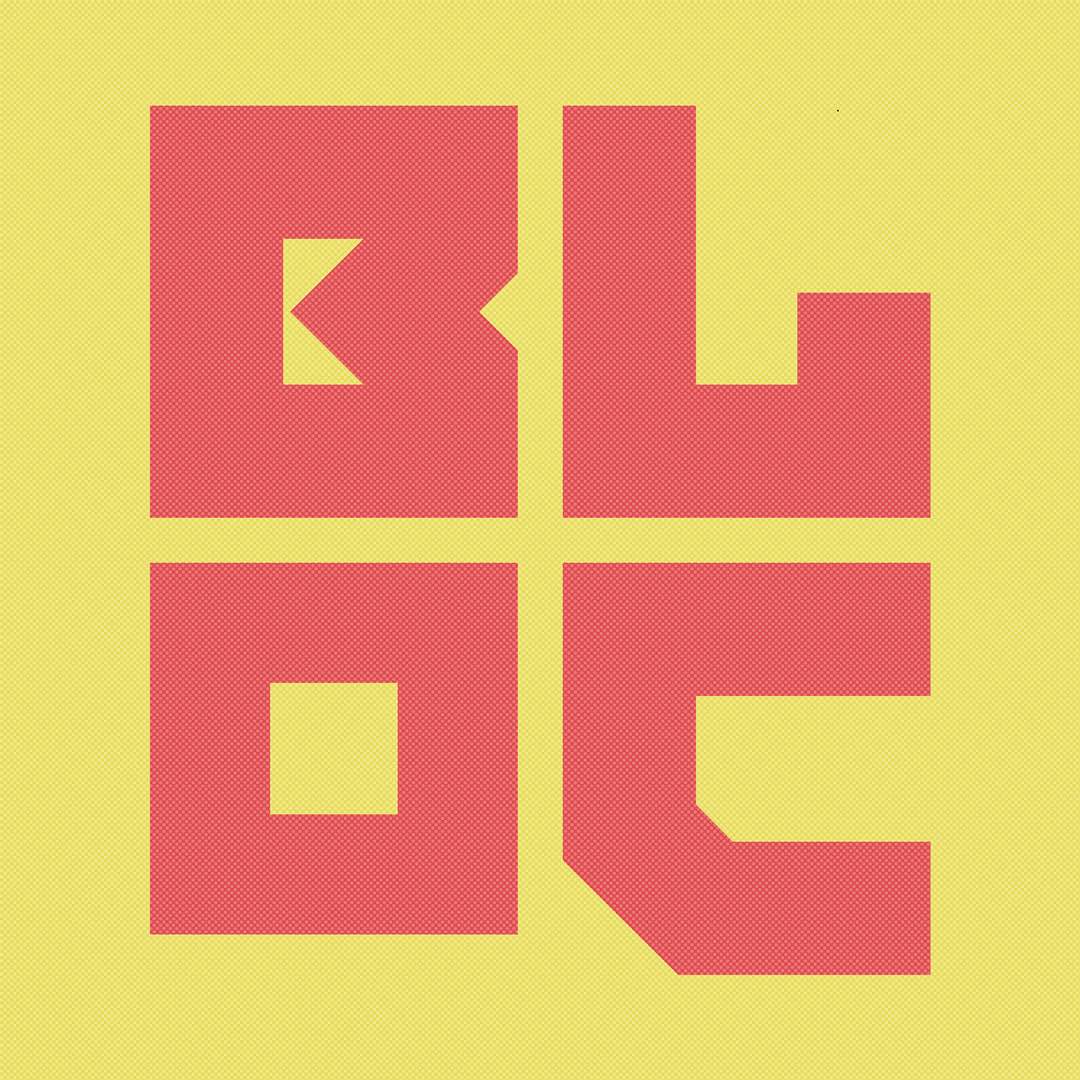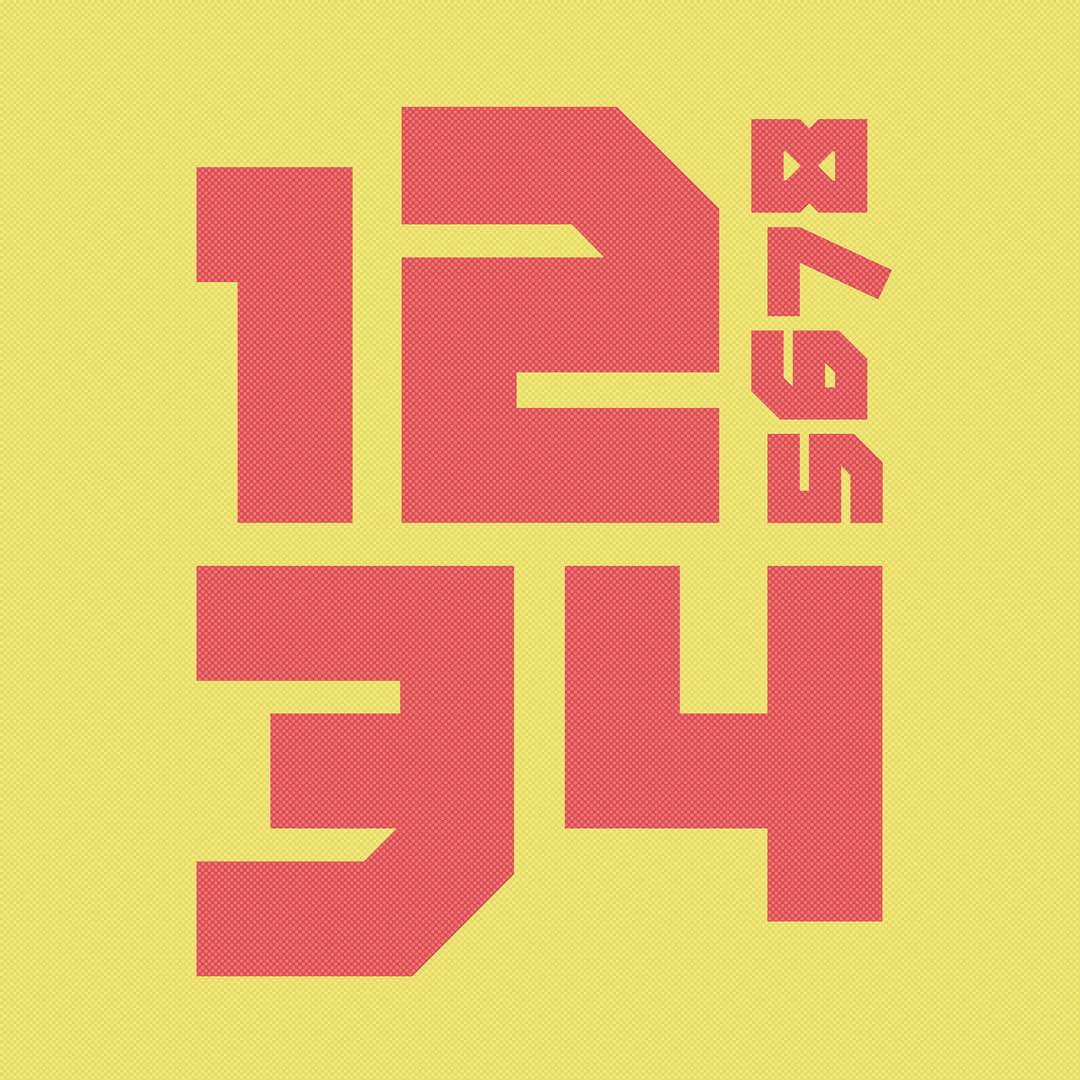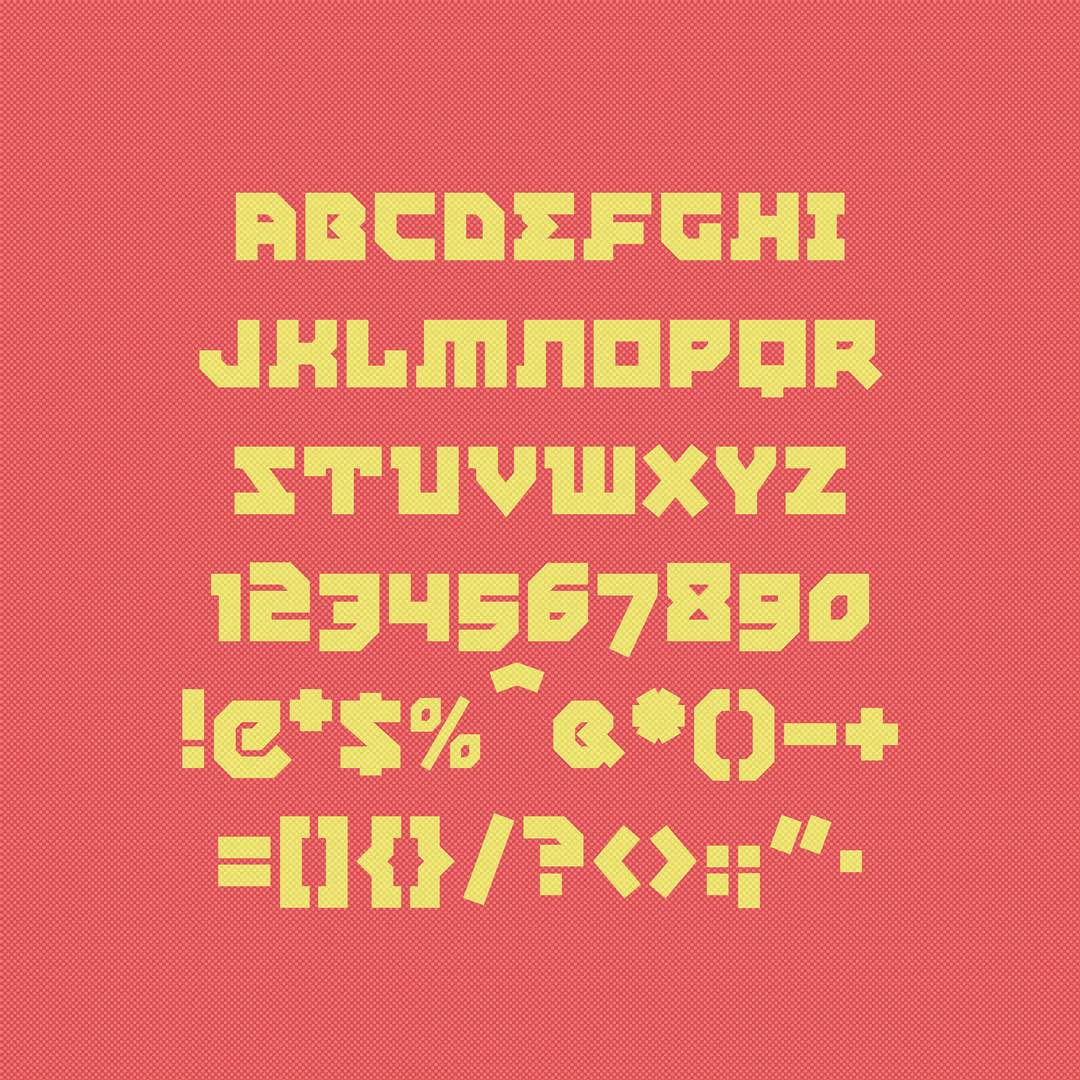
Bloc doesn’t whisper, it shouts in hard corners and heavy weight. Born from brutalist dreams and built like a concrete manifesto, this all-caps display font thrives on tension, geometry, and unapologetic clarity. Its squared counters and mechanical rhythm make it perfect for editorial punches, streetwear branding, or any project that needs to hit like a slab of steel. Use it when you want structure, not softness.